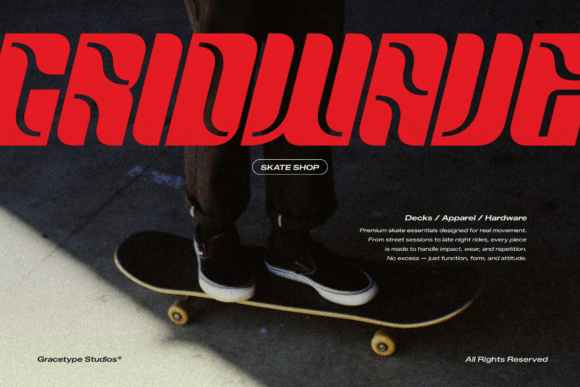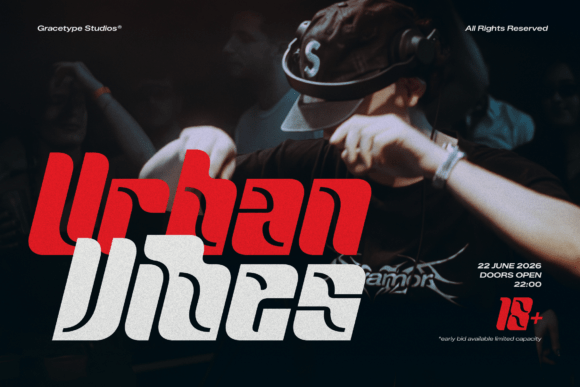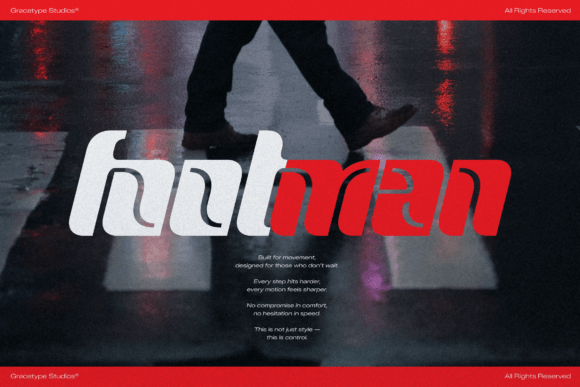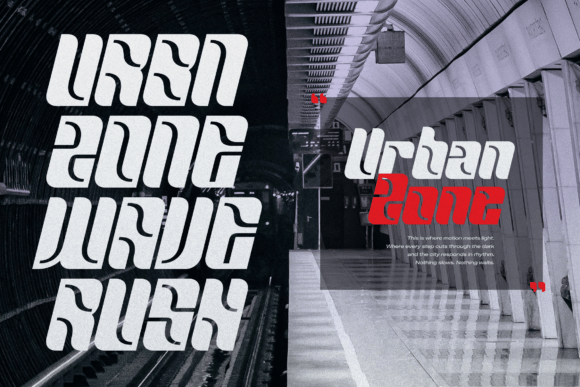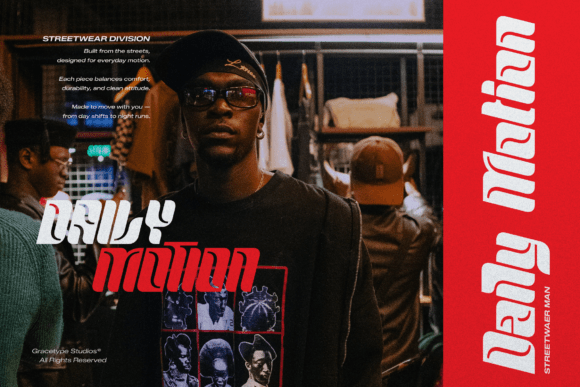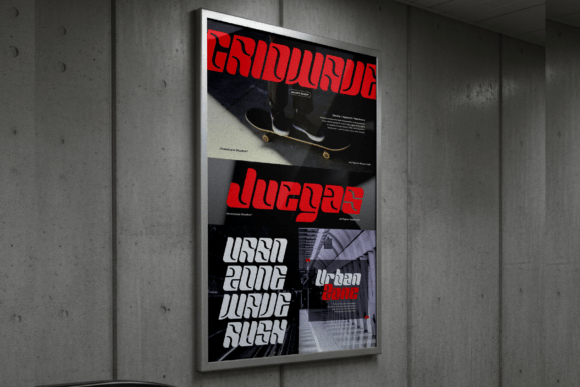
Introduction to Juegas Font Font
Fonts play a crucial role in design, and the Juegas Font font is a typeface that brings both character and versatility to any project. Whether you’re working on a branding project, a website, or a print design, the Juegas Font font offers a unique style that can elevate your work.
Level up your visual identity with Juegas, a high-impact display typeface that captures a “dynamic-and-daring” soul.
This font features ultra-heavy, italicized letterforms uniquely characterized by rhythmic, curved negative-space cutouts and a fluid structural weight that bridges the gap between professional e-sports aesthetics and modern street-fashion branding With its aggressive personality and sense of constant motion, Juegas is the premier choice for independent gaming team identities, boutique energy drink logos, experimental apparel labels, and high-impact “bold-and-breakneck” social media headers.
Key Features of Juegas Font Font
Why Choose Juegas Font Font?
The Juegas Font font is more than just a typeface – it’s a design tool that helps you communicate your message with style and clarity. Its unique character set and versatile design make it suitable for a wide range of applications, from elegant invitations to bold headlines.
With its carefully crafted letterforms and balanced proportions, the Juegas Font font ensures readability and visual appeal across all mediums.
What makes Juegas Font font special?
The Juegas Font font stands out with its unique design, exceptional readability, and versatility across various design applications.